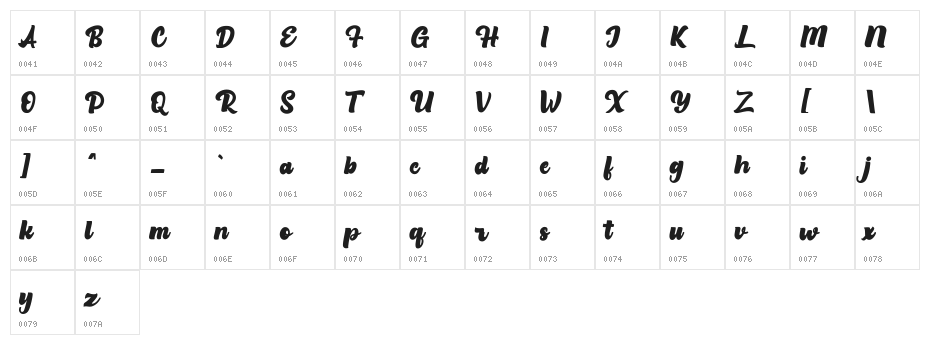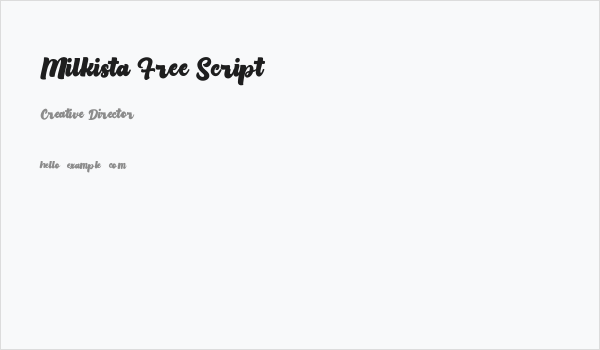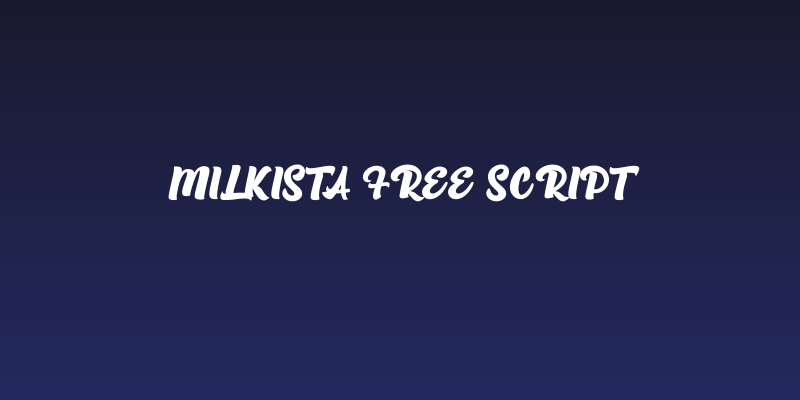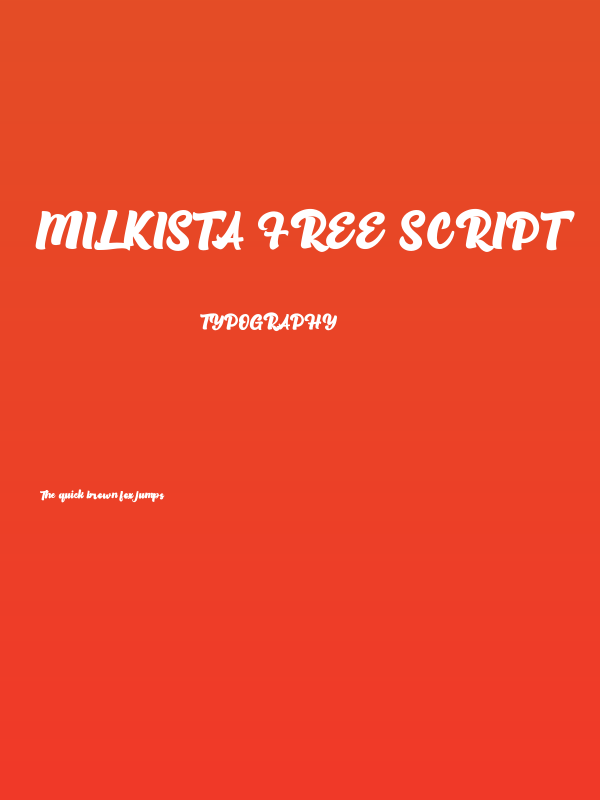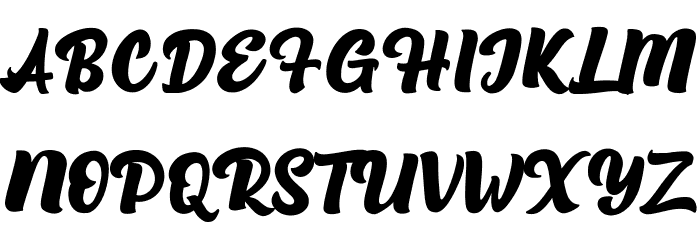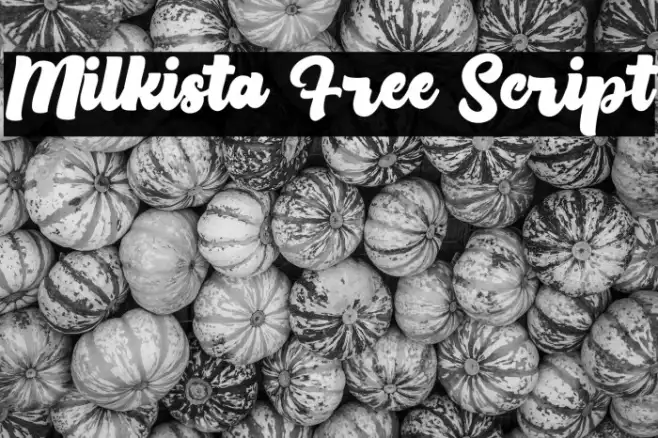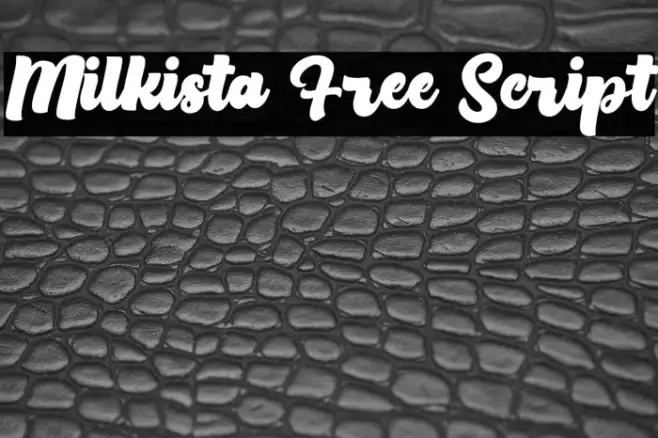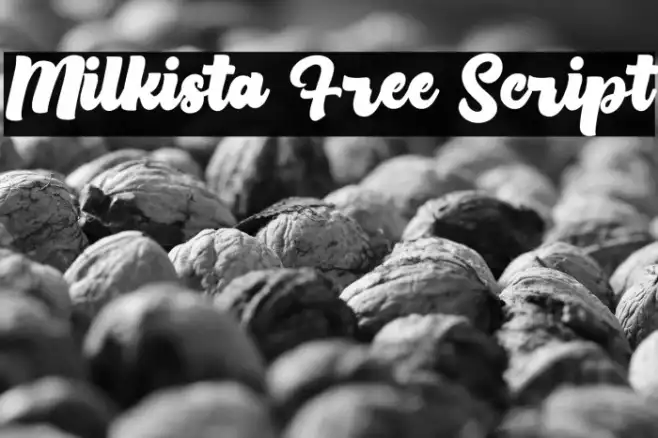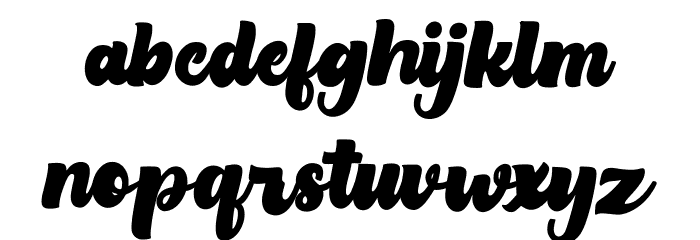
Milkista Free Script Font
Milkista Free Script Description
This font features a bold and flowing script style, characterized by its smooth, connected strokes and elegant curves. The uppercase letters exhibit a strong presence with their thick lines and dramatic flourishes, while the lowercase letters maintain a cohesive and fluid appearance. The font's design is reminiscent of traditional calligraphy, offering a sense of sophistication and artistic flair. Its bold weight and consistent stroke width make it highly legible, even in smaller sizes. The overall aesthetic is both classic and modern, making it versatile for various design applications.
| Proposed Projects | Ideal for wedding invitations, branding, logo design, and elegant packaging. |